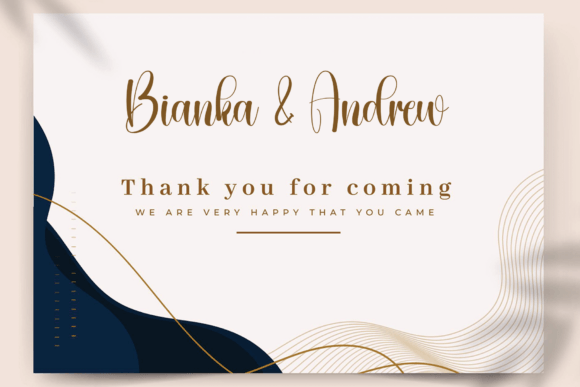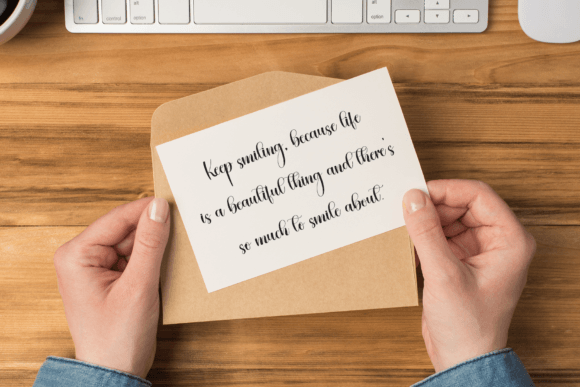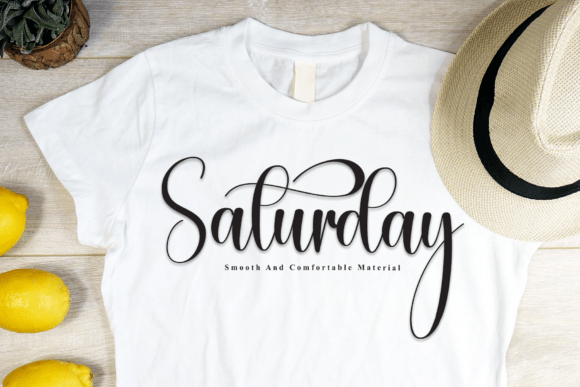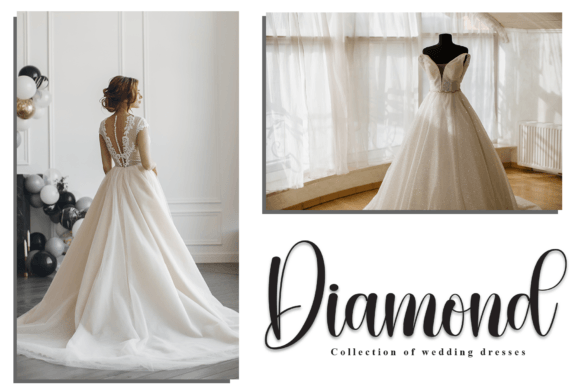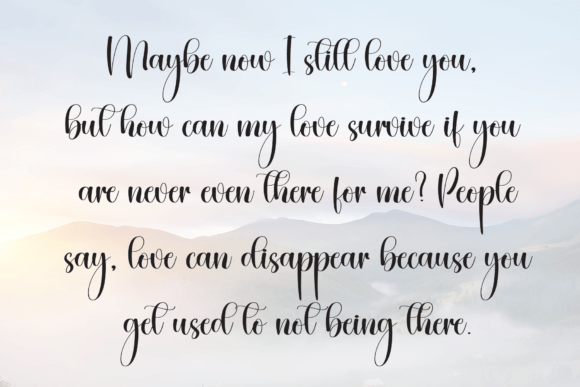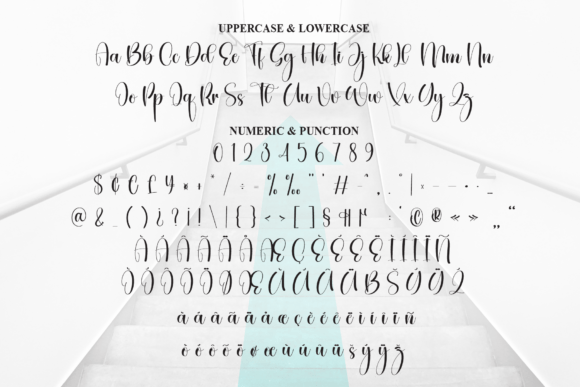
Introduction to Milestones Font Font
Fonts play a crucial role in design, and the Milestones Font font is a typeface that brings both character and versatility to any project. Whether you’re working on a branding project, a website, or a print design, the Milestones Font font offers a unique style that can elevate your work.
Milestones is a stylish handwritten script font exuding elegance and charm.
Its fluid strokes and natural flow create a captivating, sophisticated look Perfect for adding a personal touch to invitations, branding, or social media, this font brings a sense of warmth and creativity to any design.
Key Features of Milestones Font Font
Why Choose Milestones Font Font?
The Milestones Font font is more than just a typeface – it’s a design tool that helps you communicate your message with style and clarity. Its unique character set and versatile design make it suitable for a wide range of applications, from elegant invitations to bold headlines.
With its carefully crafted letterforms and balanced proportions, the Milestones Font font ensures readability and visual appeal across all mediums.
What makes Milestones Font font special?
The Milestones Font font stands out with its unique design, exceptional readability, and versatility across various design applications.